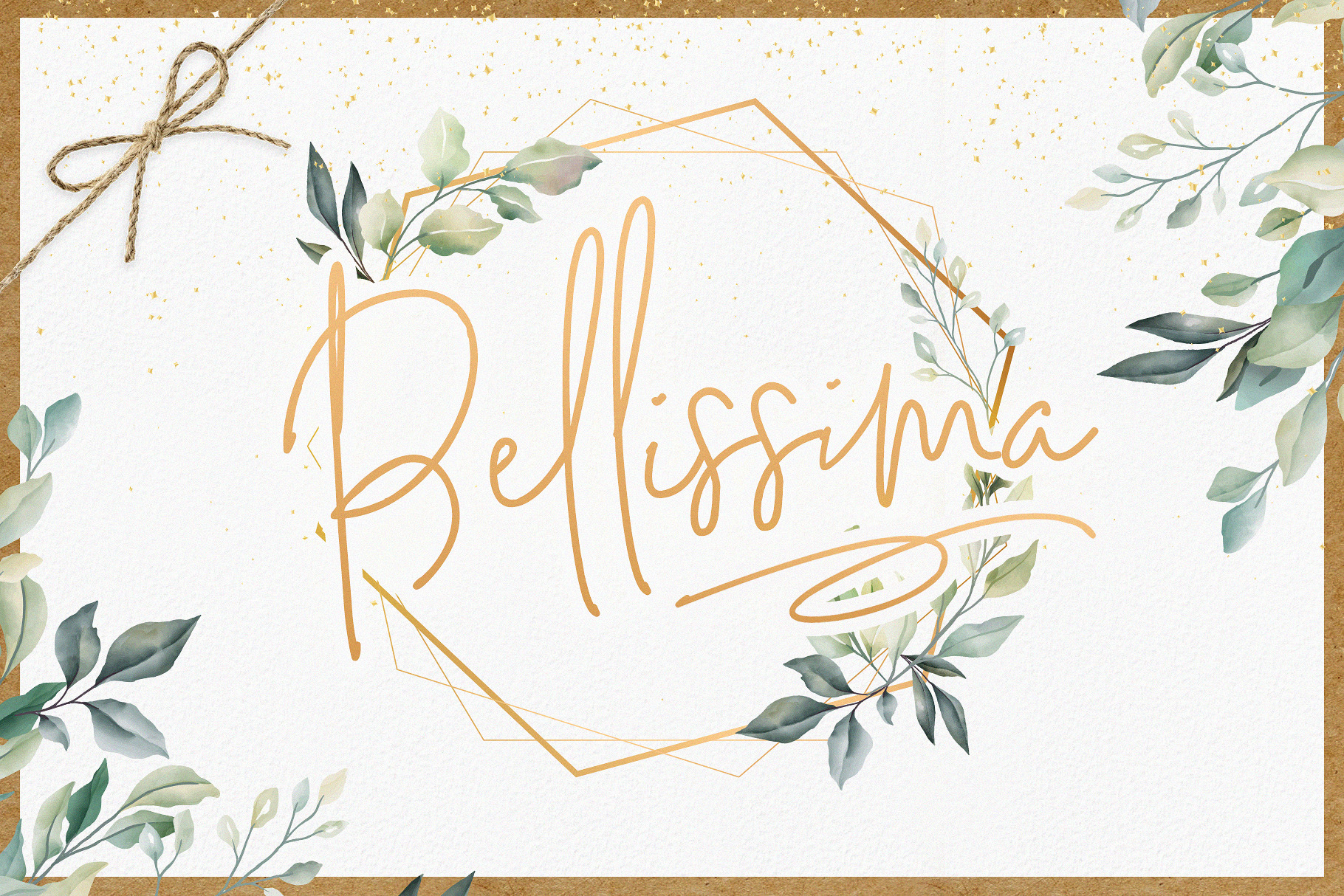
Bellissima Signature Script Font
Introducing Bellissima Signature Script
It's been a long time coming, but Bellissima Signature Script is finally here. A beautifully handcrafted typeface with bundles of charisma, character and smooth style. It comes with 100 characters in total, including specially created ligatures and swashes to use for typographic pieces.
Inspired by the Italian word "Bellissima", meaning extremely beautiful, it reflects the elegant, flowing lines of the Font and the Swashes included. This Typeface is utterly perfect for Business Cards, Branding, Print Design and so much more.